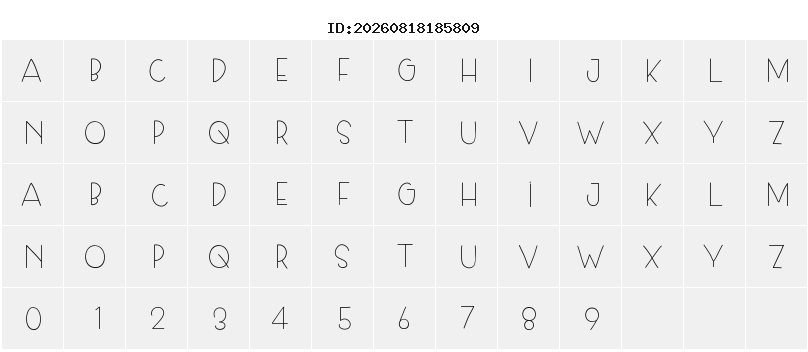
SkipLegDay Preview
• Font Name: SkipLegDay
• Full Font Name: SkipLegDay
About SkipLegDay.ttf
SkipLegDay.ttf is a modern, elegant sans-serif font designed for ultimate readability and visual harmony. Perfect for branding, headlines, web design, and print materials.